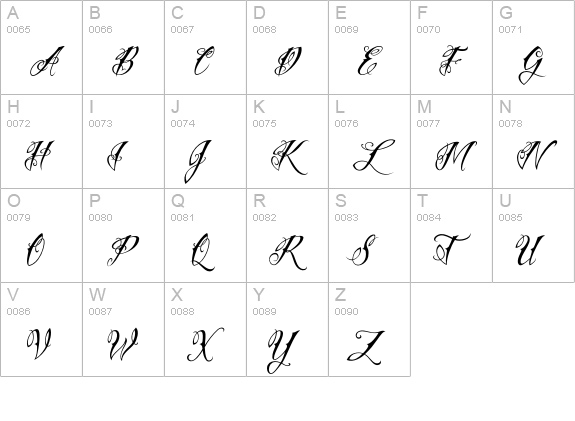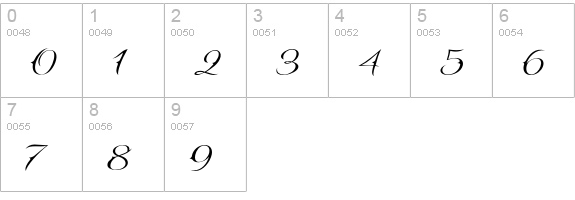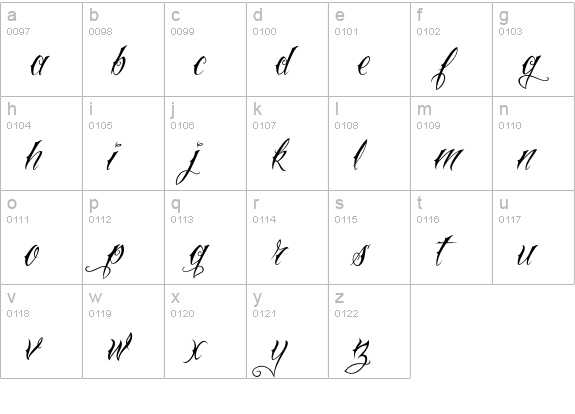
Introducing Vtc-NueTattooScript, a stunning and captivating font that is bound to leave a lasting impression on all who encounter it. This unique typeface combines the elegance of script lettering with the edginess of tattoo-inspired designs, resulting in a truly mesmerizing visual experience. Vtc-NueTattooScript boasts intricate and elaborate letterforms, meticulously crafted to resemble the artistry found in tattoo parlors around the world. Each stroke carries a sense of fluidity and grace, making this font perfect for adding a touch of sophistication to any project. With its versatile nature, Vtc-NueTattooScript can be used for a wide range of creative endeavors. Whether you're designing a logo, creating eye-catching headlines, or adding a personal touch to invitations, this font is sure to elevate your work to new heights. And the best part? Vtc-NueTattooScript is absolutely free! That's right, you can download this remarkable font at no cost from FontsMarket.com. We believe that great design should be accessible to everyone, and we are thrilled to offer this font as a gift to the design community. So why wait? Unlock the endless possibilities that Vtc-NueTattooScript has to offer and let your creativity run wild. Download this extraordinary font today and watch as your projects come to life with a touch of elegance and a dash of rebellion.